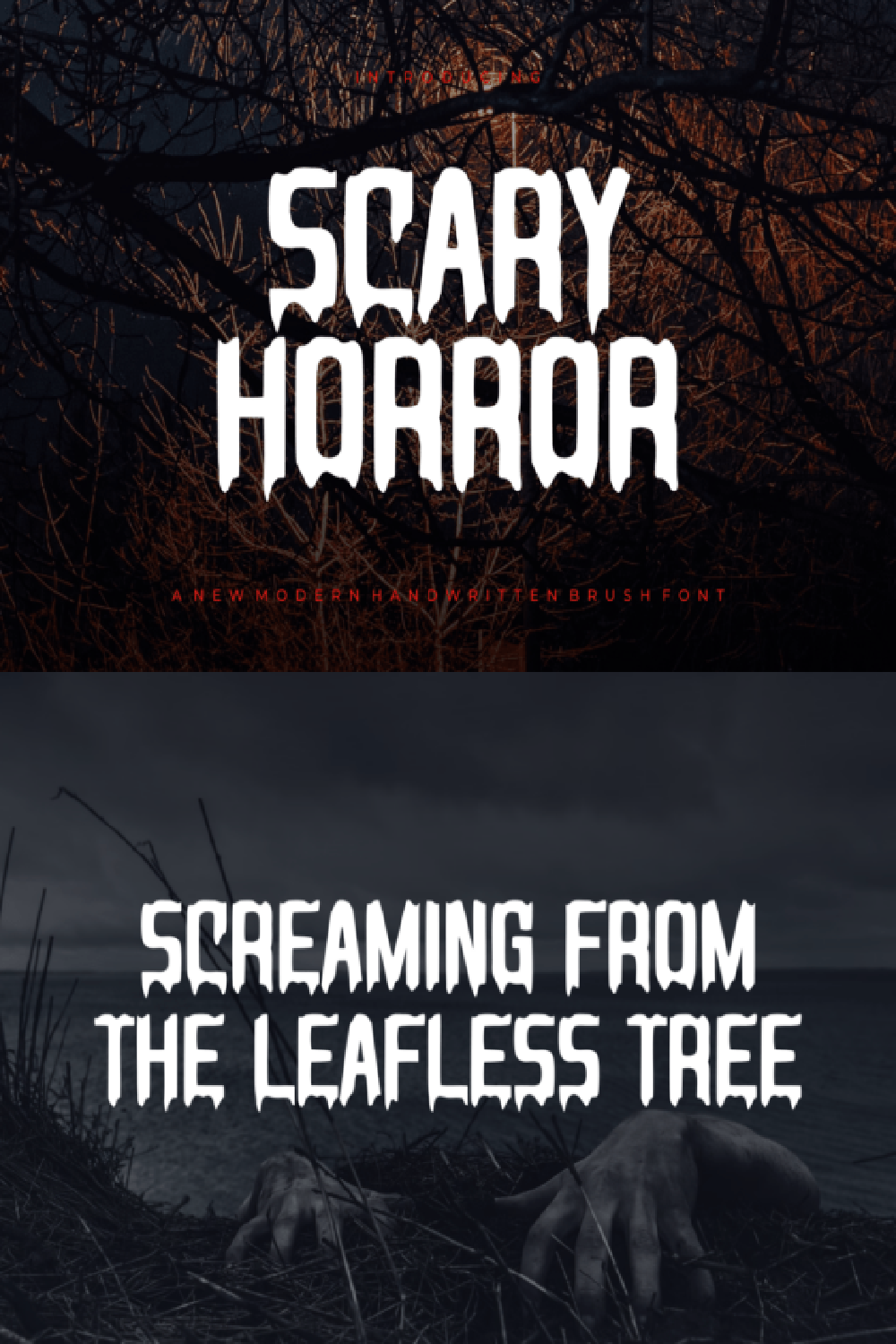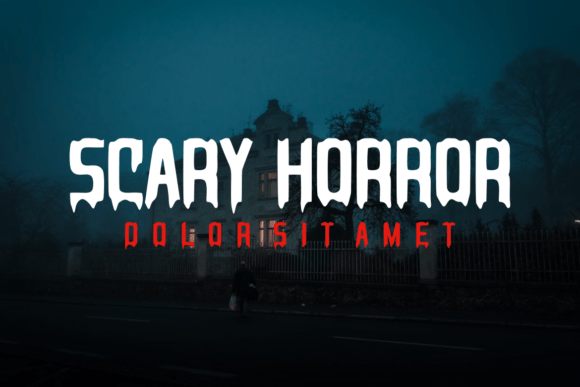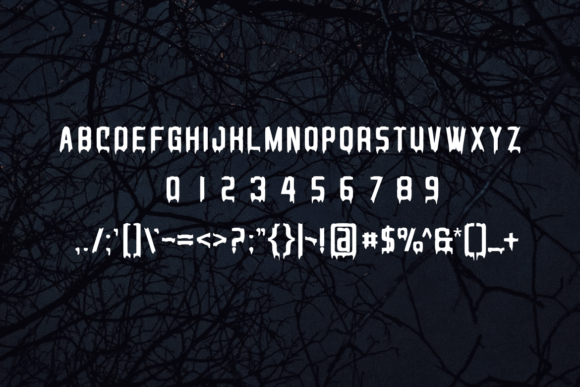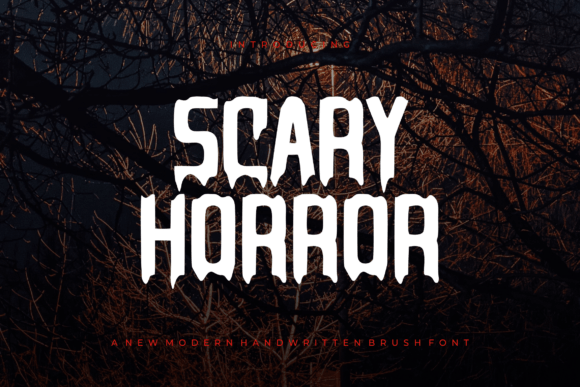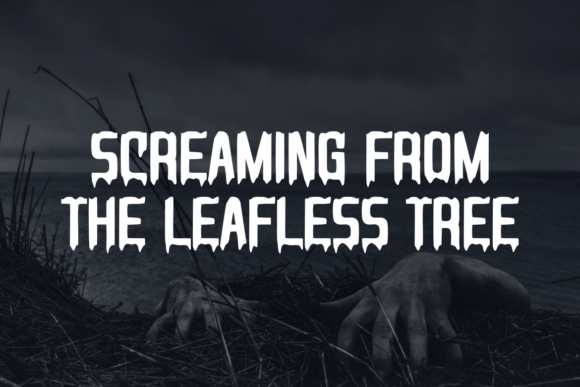
Scary Horror Font
About the Scary Horror Font
Discover the charm of Scary Horror Font. This font is a perfect blend of modern aesthetics and classic appeal. Scary Horror is a bold handwritten brush font designed to send chills down your spine. With its jagged, distorted strokes and sharp edges, it’s perfect for horror movie titles, Halloween flyers, thriller posters, or any design that craves a creepy, dramatic flair.